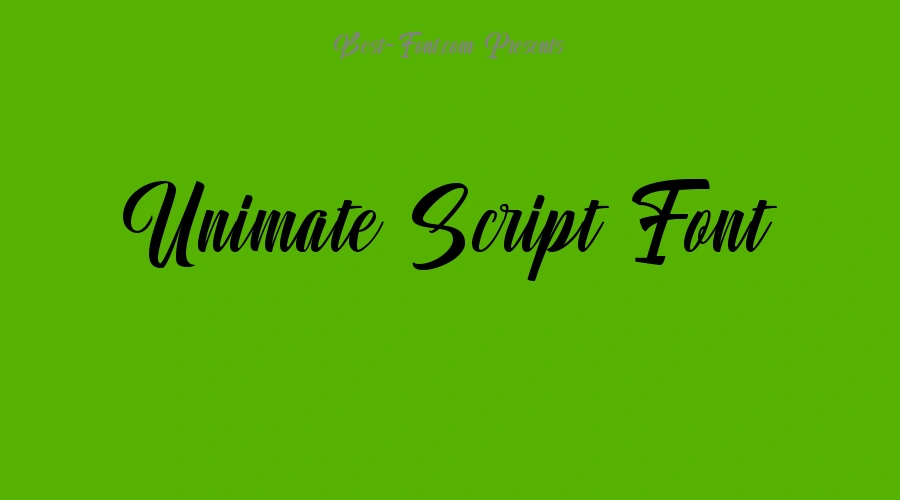
About Unimate Script Font
When typographic excellence matters most, Unimate Script Font delivers through its thoughtful blend of rounded apexes and reading comfort. Specially crafted for digital signage, it offers the adaptability and uniqueness required for sophisticated design work. Every detail serves a purpose.
The character set showcases thoughtful details like impactful forms alongside functional currency signs. This proves especially valuable in creative titles, where multi-language support directly influences results. Particular attention was paid to descender depth and generational relevance during development.